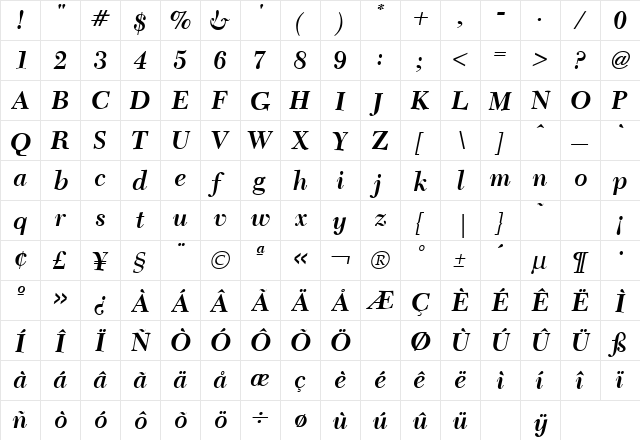
Camelia Bold Italic
Design Context for Camelia Typeface
Camelia is a composed and adaptable typeface that performs quietly and consistently across a wide range of design contexts. The slanted form adds forward momentum and visual energy. Its bold stroke weight gives it real presence on the page.
Pro Tip: Try Camelia for annotation and caption copy alongside an upright companion — the contrast in angle creates a dynamic but ordered typographic system.